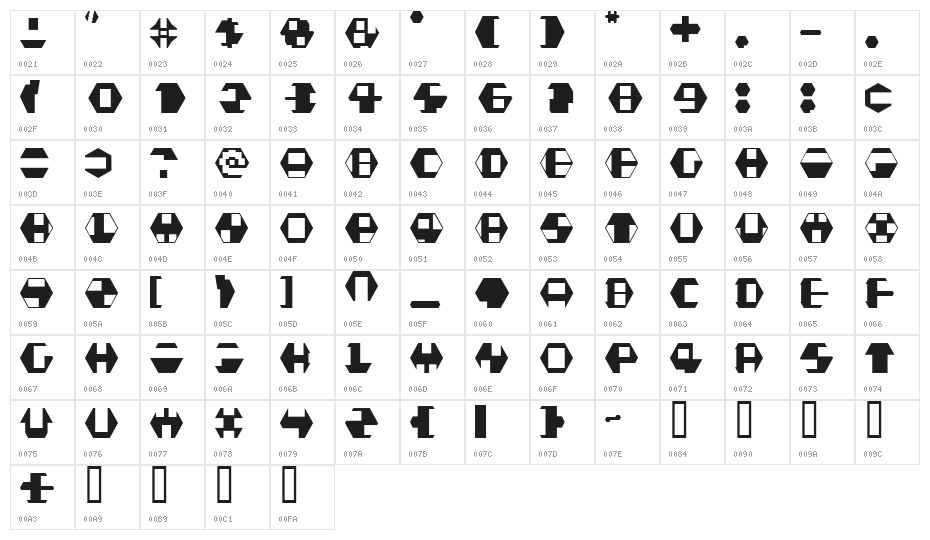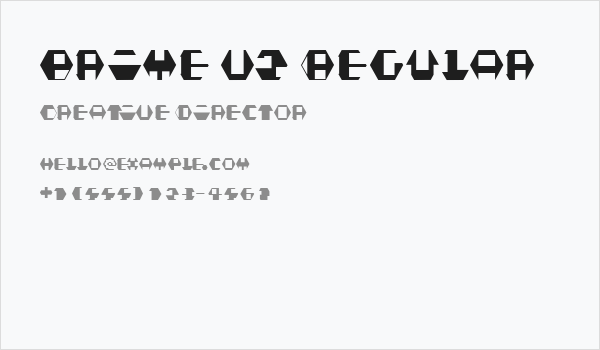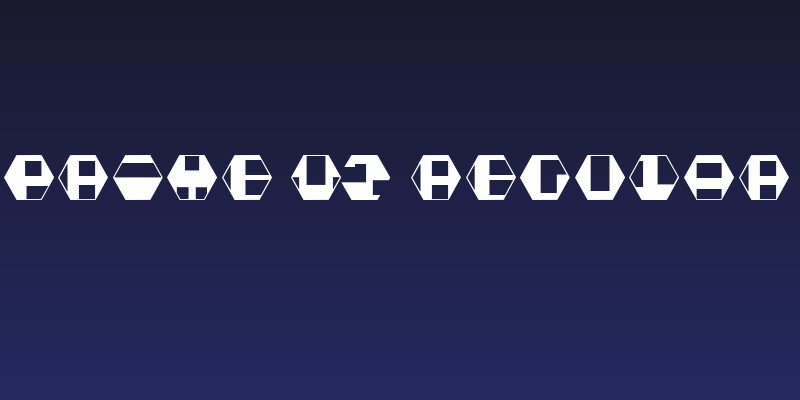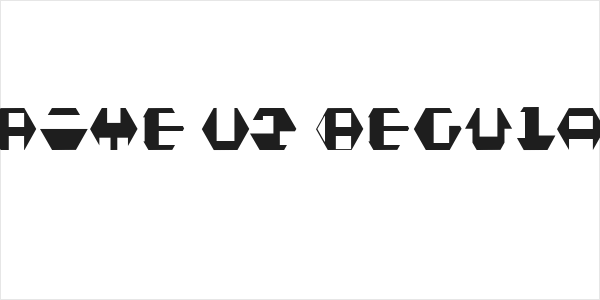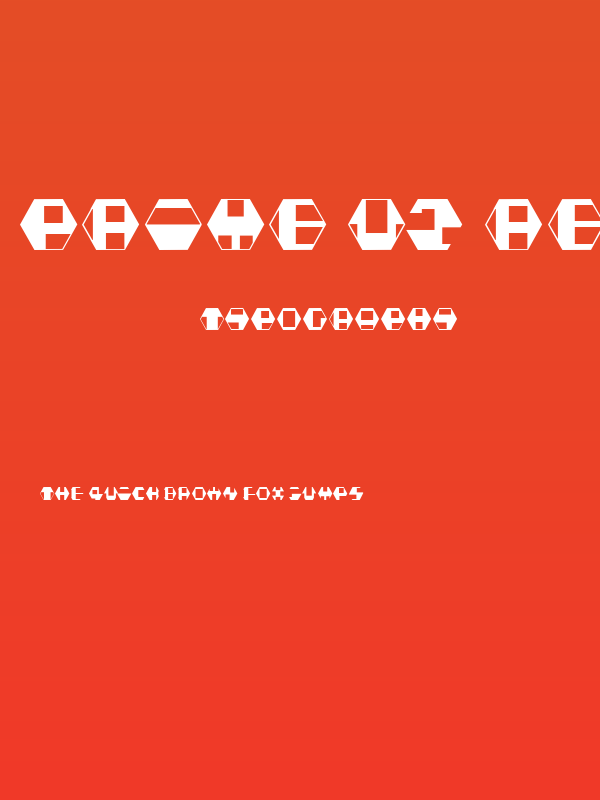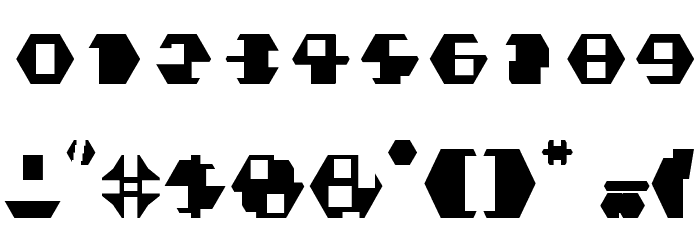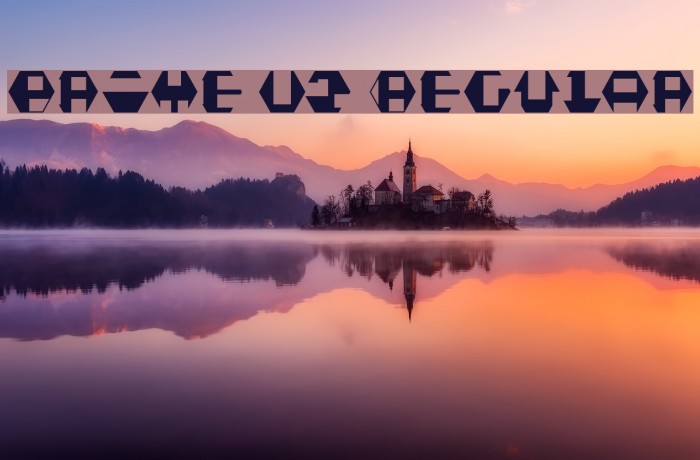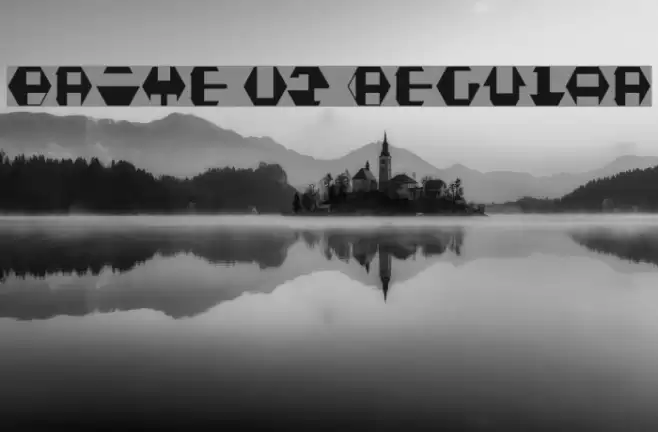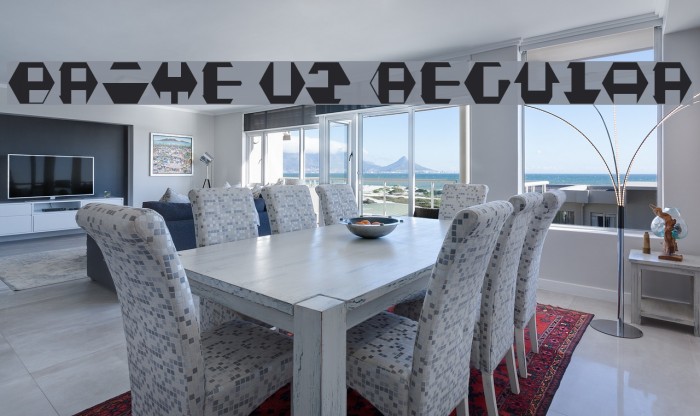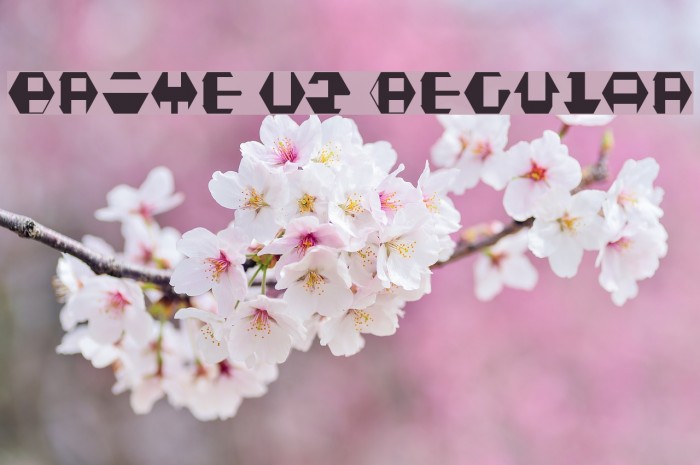
Prime v2 Regular Font
Prime v2 Regular Description
This font features a bold, geometric style with a futuristic and angular design. Each character is constructed with sharp edges and a blocky appearance, creating a sense of modernity and innovation. The letters and numbers are distinct and easily recognizable, yet they maintain a cohesive visual theme that emphasizes symmetry and balance. The use of negative space within the characters adds an intriguing visual element, enhancing the overall aesthetic. This font is particularly striking in its ability to convey a sense of technology and forward-thinking design.